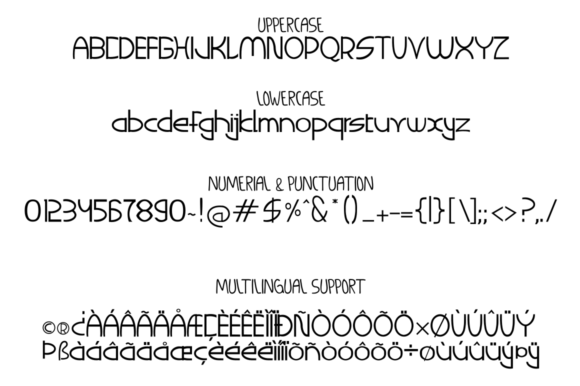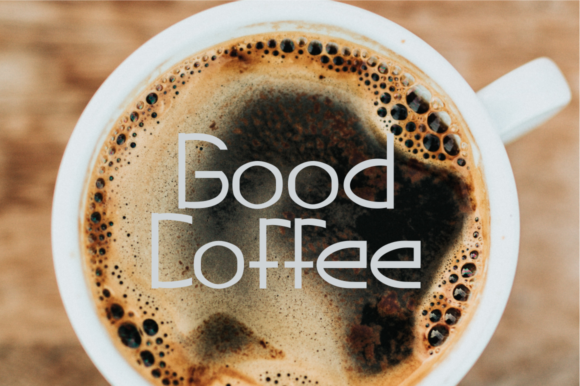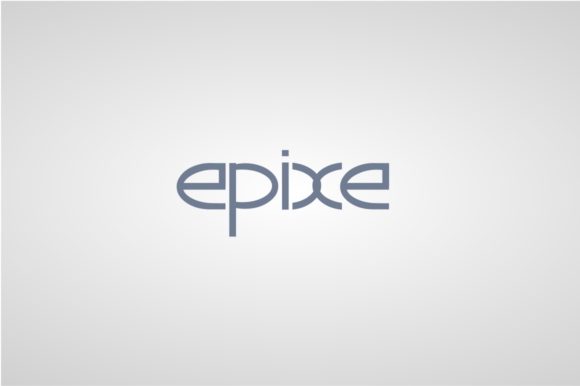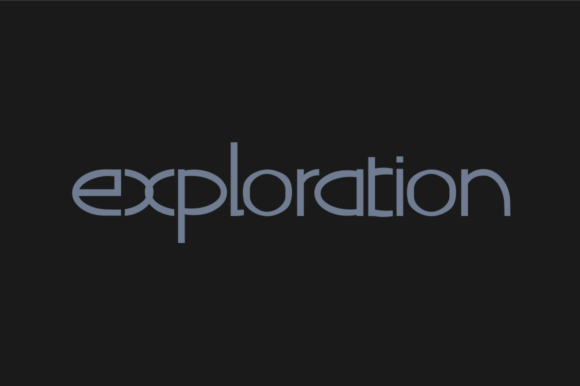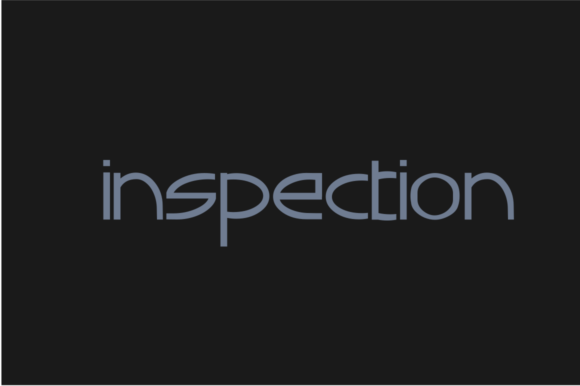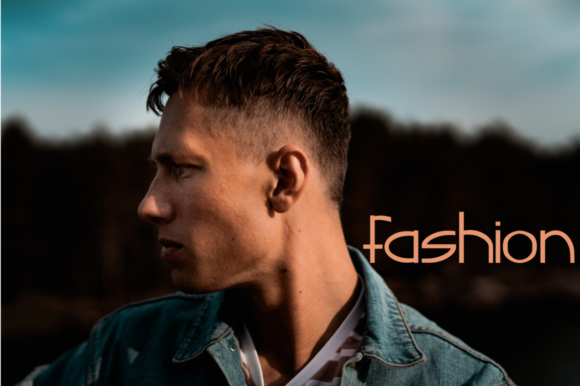
Introduction to Sigaharu Font Font
Fonts play a crucial role in design, and the Sigaharu Font font is a typeface that brings both character and versatility to any project. Whether you’re working on a branding project, a website, or a print design, the Sigaharu Font font offers a unique style that can elevate your work.
The Sigaharu is a striking sans serif font.
It has a great readability and will make any design stand out Sigaharu is the name of a tree that is used as an ingredient in making perfumes.
Key Features of Sigaharu Font Font
Why Choose Sigaharu Font Font?
The Sigaharu Font font is more than just a typeface – it’s a design tool that helps you communicate your message with style and clarity. Its unique character set and versatile design make it suitable for a wide range of applications, from elegant invitations to bold headlines.
With its carefully crafted letterforms and balanced proportions, the Sigaharu Font font ensures readability and visual appeal across all mediums.
What makes Sigaharu Font font special?
The Sigaharu Font font stands out with its unique design, exceptional readability, and versatility across various design applications.